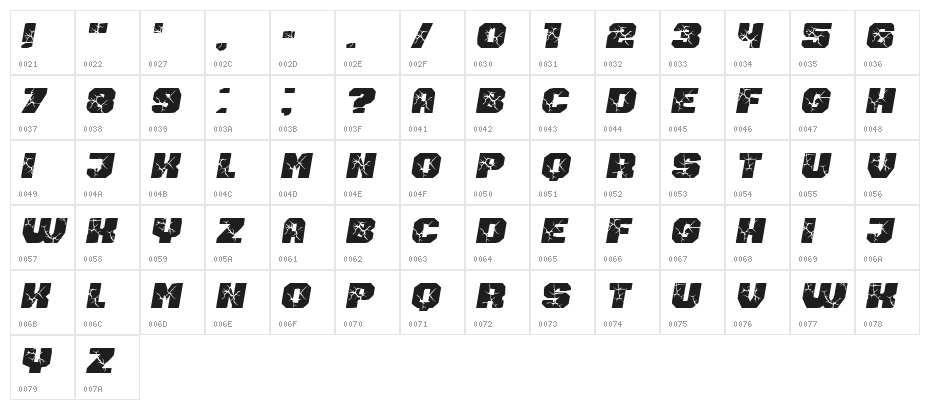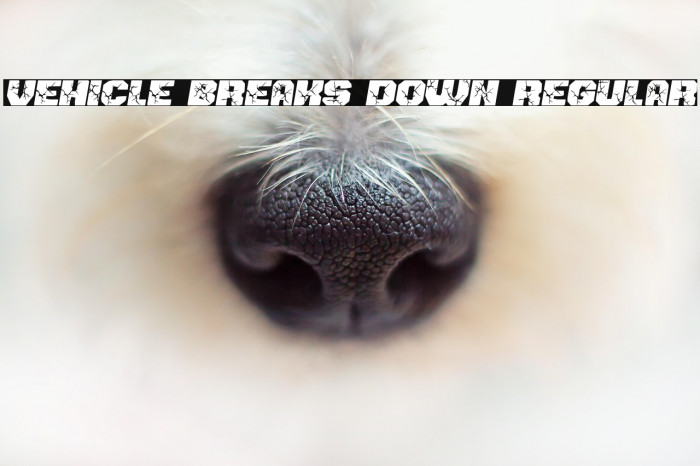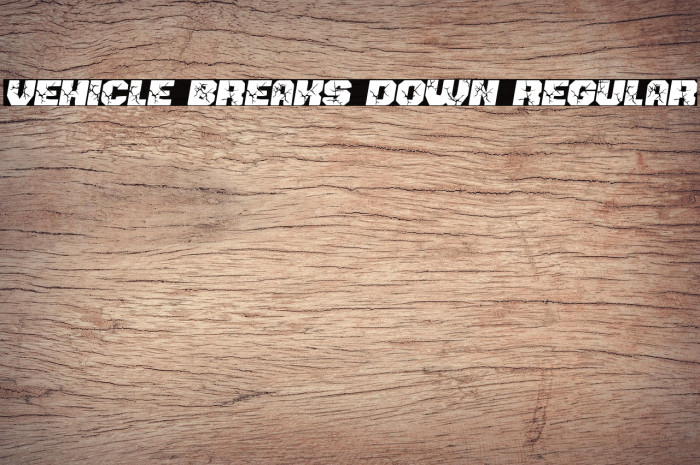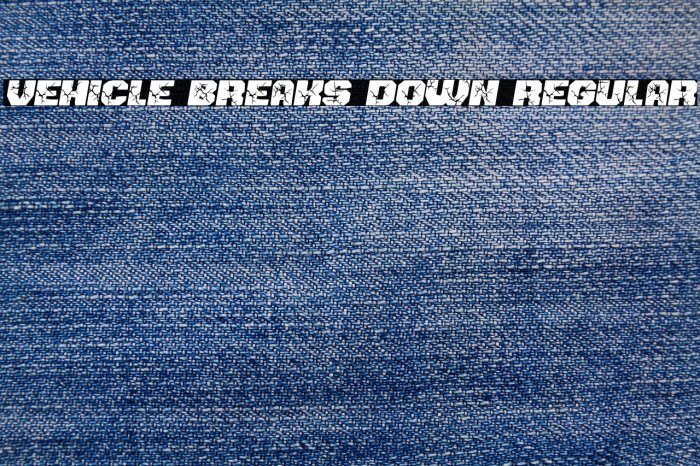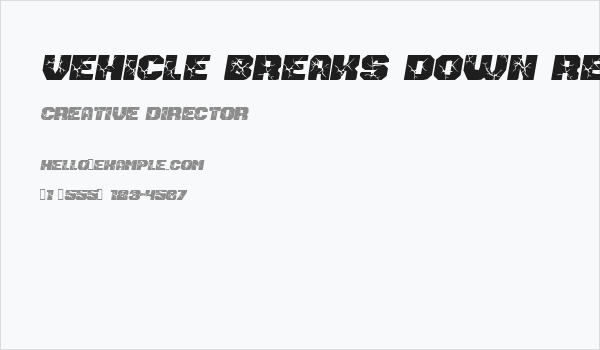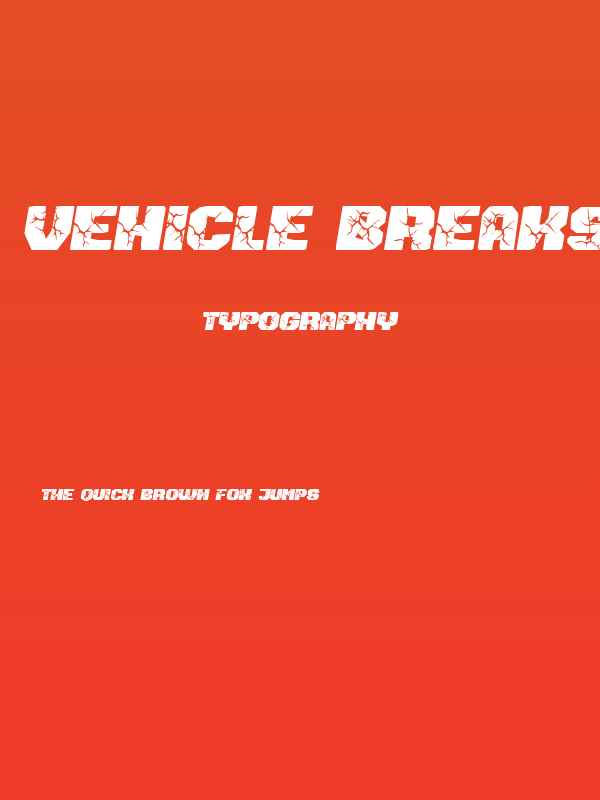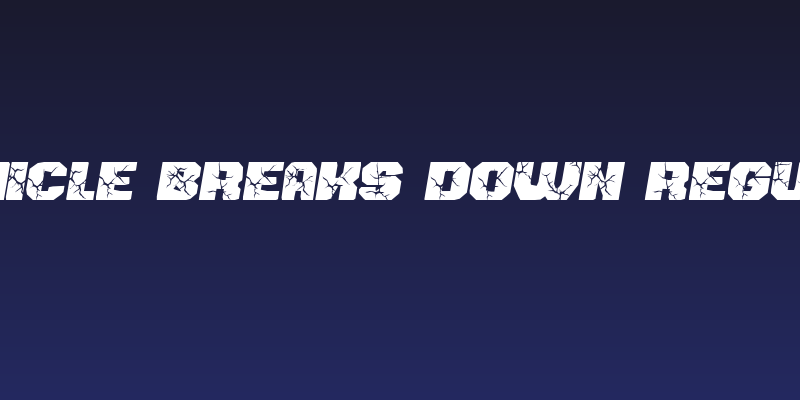
Vehicle Breaks Down Regular Font
Vehicle Breaks Down Regular Description
This font features a bold, cracked texture that gives it a rugged and distressed appearance. The characters are blocky and angular, with sharp edges and a consistent break pattern throughout each letter and number. The design evokes a sense of wear and tear, making it ideal for projects that require a gritty, industrial feel. The uppercase and lowercase letters maintain a uniform style, while the numbers and special characters follow the same cracked motif, ensuring visual consistency across all elements.
| Proposed Projects | Ideal for use in posters, album covers, video game graphics, and any design requiring a gritty, industrial aesthetic. |